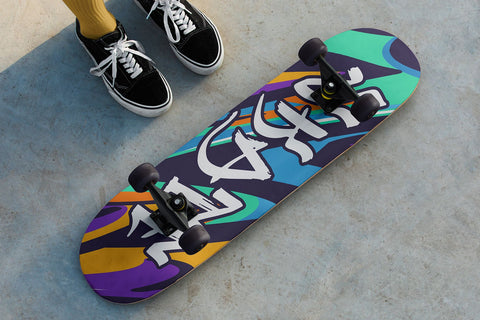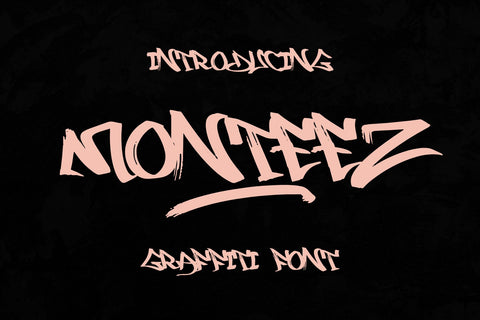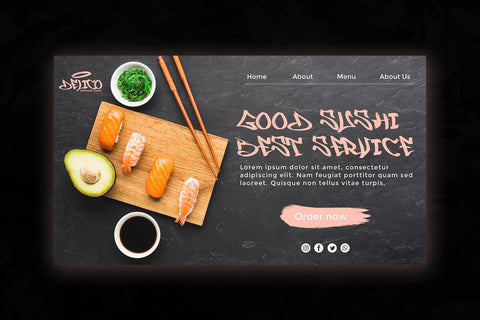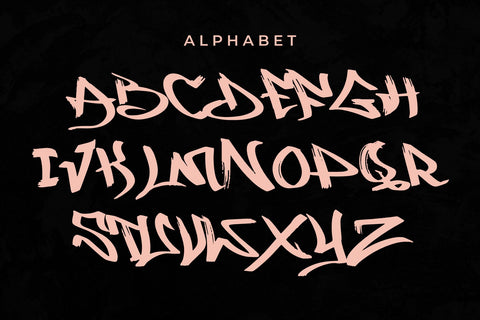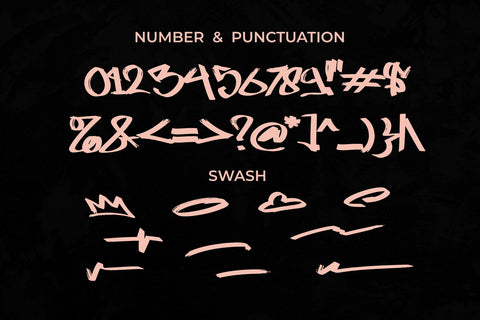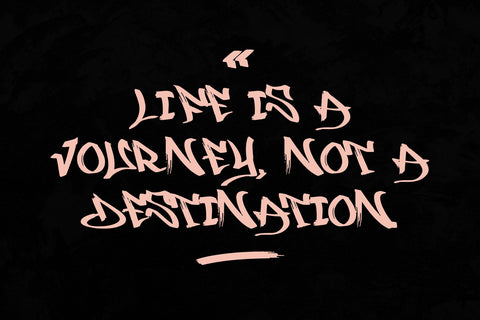
Monteez - Brushed Graffiti font
"Monteez" is a brush graffiti font characterized by its monoline style. Brush graffiti fonts typically emulate the look of hand-painted lettering created with brush strokes, resulting in a raw and expressive aesthetic. The monoline style maintains consistent stroke thickness throughout the characters, giving the font a uniform and cohesive appearance.
- Graffiti Characters looks